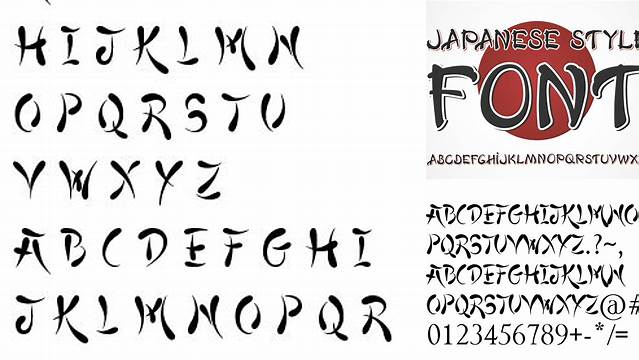
Hey guys! Are you looking to add a touch of Japanese flair to your English typography? You're in the right place! We're diving deep into the world of Japanese style English fonts, focusing on free TTF (TrueType Font) downloads and how you can use them to create stunning designs. Whether you're a seasoned designer or just starting out, I've got you covered with everything you need to know. Let's get started and transform your projects with these unique and eye-catching fonts!
Japanese-Inspired English Fonts: What Makes Them Special?
So, what exactly is a Japanese style English font? Think of it as a fusion of two worlds. These fonts often blend the elegance and precision of Japanese calligraphy with the familiar letterforms of the English alphabet. This creates a visual harmony that's both striking and intriguing. You'll find a variety of styles, from fonts that mimic the brushstrokes of traditional Japanese art to those that incorporate subtle Japanese design elements. The beauty lies in their versatility. You can use them for everything from branding and logos to website headers and social media graphics. The key is to choose a font that complements your overall design aesthetic. For example, if you're aiming for a minimalist look, you might opt for a clean, sans-serif font with a hint of Japanese influence. If you're going for something more traditional, a font that emulates calligraphy or hand-lettering might be a better fit. These fonts also offer a unique way to communicate. They instantly evoke a sense of cultural sophistication and can add a layer of meaning to your design. It's like your design is speaking another language without actually saying anything. Isn't that cool? They're particularly popular in industries like fashion, food, and travel, where they can add a touch of exoticism and elegance. But honestly, the possibilities are endless. If you're trying to add a touch of creativity to your project, you can consider exploring various Japanese style English fonts. You might find your perfect font for your design project.
Differences Between Japanese and English Letterforms
Understanding the differences between Japanese and English letterforms is crucial. English primarily uses the Latin alphabet, which is characterized by its distinct letter shapes and consistent spacing. Japanese, on the other hand, uses a combination of kanji (ideograms), hiragana (phonetic characters), and katakana (phonetic characters). The visual complexity of Japanese characters often contrasts with the simplicity of English letters. When it comes to Japanese style English fonts, designers play with these differences. They might add brushstroke-like details to English letters to mimic the appearance of kanji, or they might adjust the letter spacing to create a sense of visual balance with Japanese characters. It's all about creating a harmonious blend of both. The main difference is that Japanese fonts have more complex and unique characters, and this difference is considered to be the key to making these fonts look different and unique. The best thing you can do is understand their differences.
How to Choose the Right Japanese-Inspired Font
Choosing the right font is like choosing the perfect outfit – it needs to match your personality and the occasion. With Japanese style English fonts, the same principle applies. Consider the overall tone of your project. Is it modern and sleek, or traditional and rustic? The font you choose should reflect that. Think about readability. Some fonts are more decorative than others, so make sure your text is easy to read, especially in body copy. Experiment with different fonts. Don't be afraid to try out a few different options before settling on one. See how they look in different sizes and contexts. What works well on a logo might not work as well on a website header. If you're using the font for a logo, consider a font that is bold and distinct. If you're using it for body text, choose a font that is easy to read. Consider the context of your project. What is the purpose of your design? What is the message you want to convey? Does the font fit your brand's values? All these things will help you choose the perfect font for your design. The best font for your project is the one that suits your personality and your project's needs.